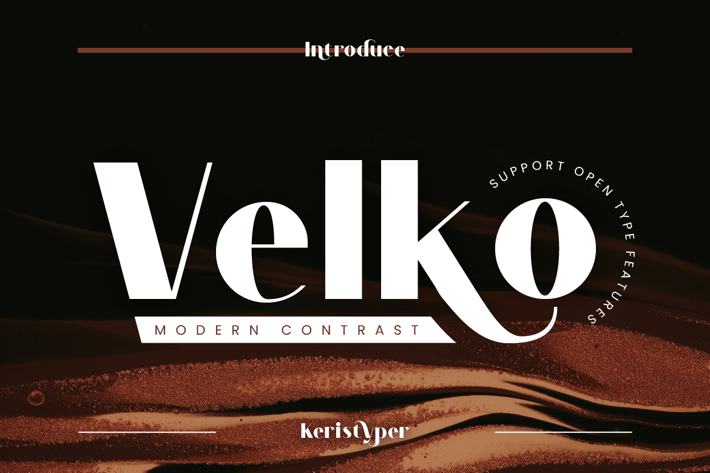
Velko Font
Volka is a modern sans serif font with clean and minimal lines with high contrast looks. This font is good for logo design, Social media, Movie Titles, Books Titles, short text even long text letters, and good for your secondary text font with script, sans or serif.
Featured:
Standard Uppercase & Lowercase
Multilingual : ä ö ü Ä Ö Ü ß ¿ ¡
Alternate & Ligature